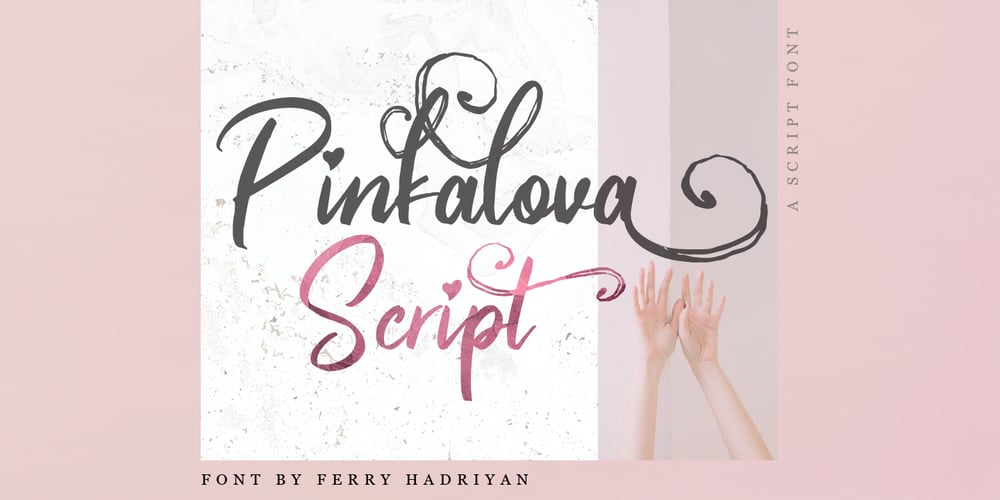
Pinkalova Font Family was designed by Ferry Hadriyan and published by FHFont. Pinkalova contains 2 styles and family package options. Pinkalova is handwritten script font with love and unique style. Suitable for design, element design, wedding, event, t-shirt, logo, badges, sticker, and awesome work, etc…